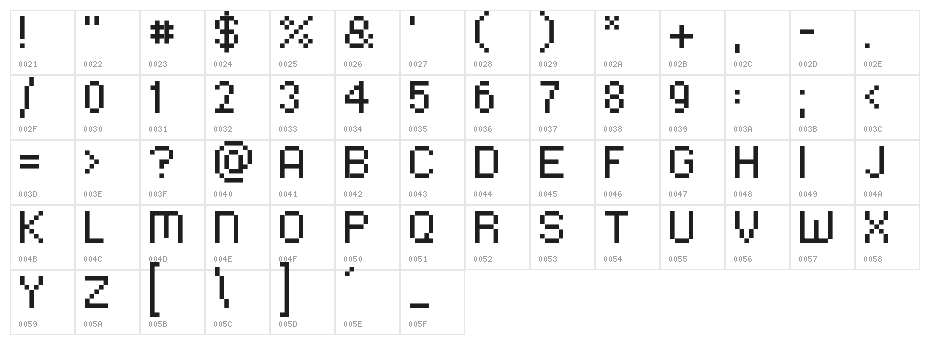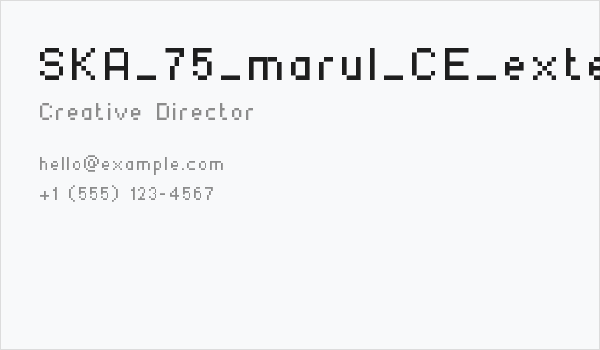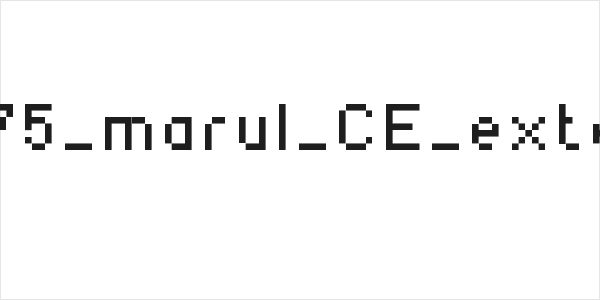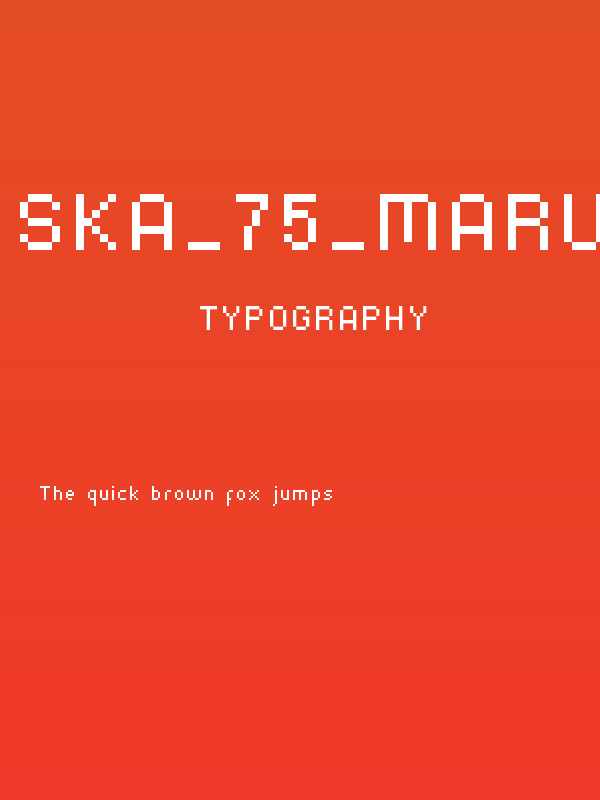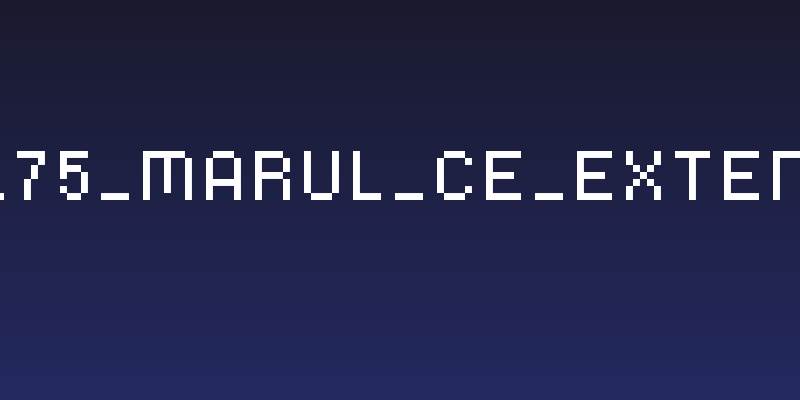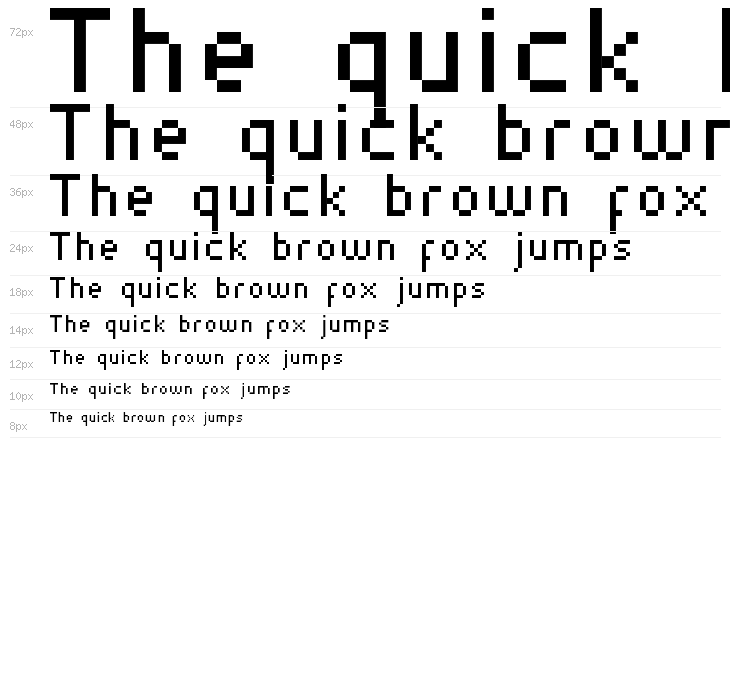
SKA_75_marul_CE_extended Font
SKA_75_marul_CE_extended Description
This font features a pixelated, blocky design reminiscent of early digital displays and retro video games. Each character is constructed with a grid-like precision, giving it a distinctly digital and geometric appearance. The uppercase and lowercase letters maintain a consistent height, contributing to a uniform and cohesive look. The numerals and special characters follow the same pixelated style, ensuring a harmonious overall aesthetic. This font's simplicity and clarity make it highly legible, even at smaller sizes, while its retro charm adds a touch of nostalgia.
| Overall Style | Retro, Digital |
| Use Case | Headlines, Logos, Digital Art |
| Proposed Projects | Ideal for retro-themed designs, video game graphics, digital art projects, and any creative work that requires a nostalgic digital feel. |